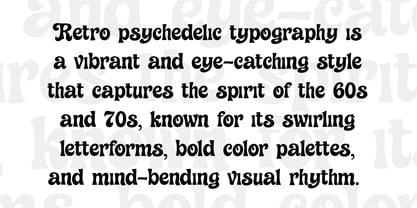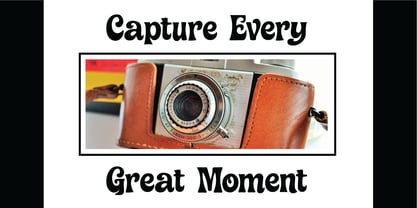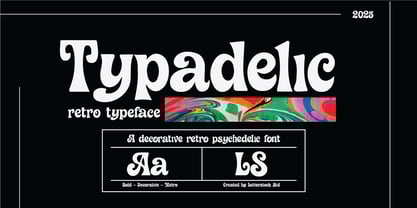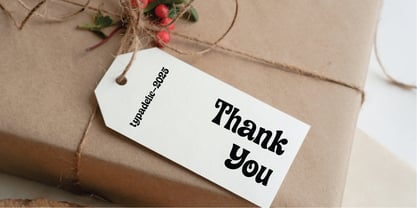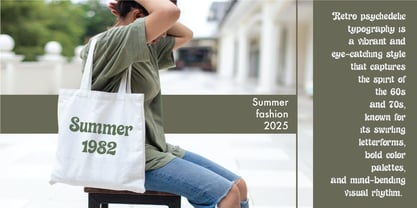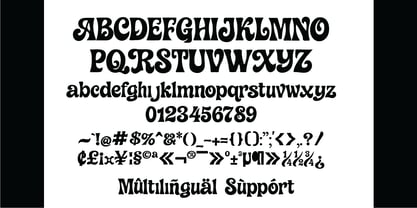
Typadelic
by LetterStock
The Typadelic Font Family was designed by Studio LetterStock and published by LetterStock. Typadelic contains 1 styles.
Introducing Typadelic — a font born from a deep love for retro charm and a wild passion for artistic expression. Inspired by the free-spirited energy of the 60s and 70s, Typadelic brings the groovy vibes of psychedelic typography into the modern era. Each letter is handcrafted with bold curves, playful swirls, and a soul that dances to the beat of vintage rock ‘n’ roll. Whether you’re designing album covers, event posters, branding, or anything that needs a splash of funky flair, Typadelic is your perfect creative partner.
This font isn’t just a typeface—it’s an experience. It speaks nostalgia with a modern twist, making your design pop with personality and retro magic. Typadelic is ready to groove across any platform or project you throw at it.
Let your creativity run wild. Let your words speak in colors.